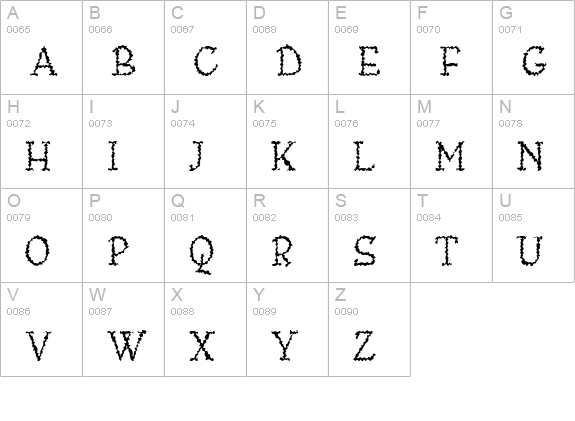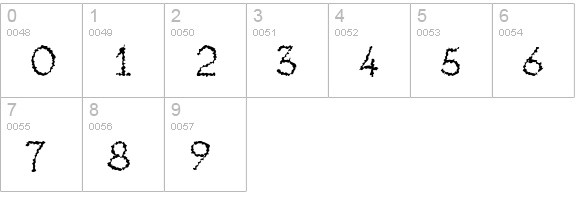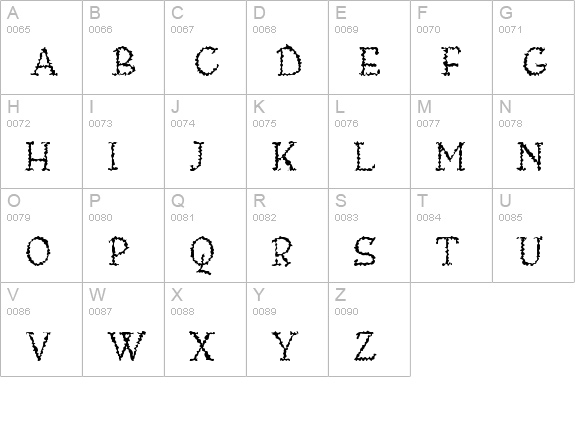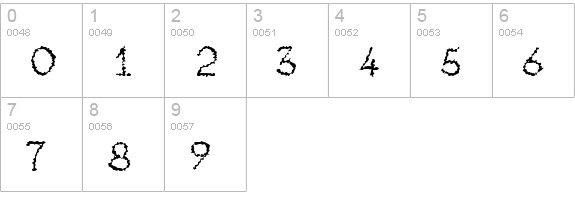
AnarckhieDecayed Font Details
AnarckhieDecayed font is a unique and bold display typeface that exudes a sense of decay and rebellion. Its sharp edges and distressed appearance give it a raw and edgy feel, perfect for projects that require a touch of anarchy and nonconformity. The font's intricate details and gritty texture make it stand out and command attention. AnarckhieDecayed font is freely available to download at FontsMarket.com, making it easily accessible for designers and creatives looking to add a rebellious flair to their projects. Whether you're working on posters, album covers, or branding materials, this font is sure to make a powerful statement and leave a lasting impression. Embrace the decay and unleash your creativity with AnarckhieDecayed font.